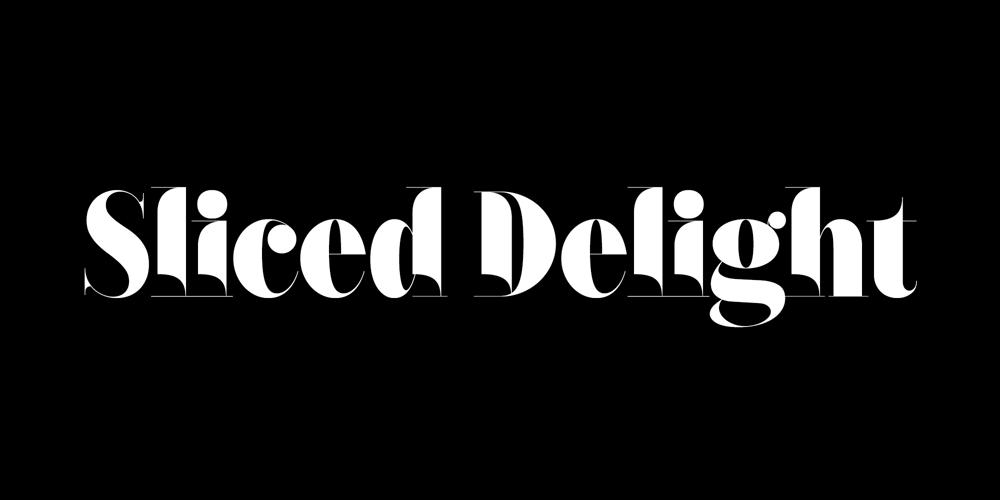
Sliced Delight Font Family was designed by Rajesh Rajput and published by Rajesh Rajput. Sliced Delight contains 27 styles and family package options. Sliced Delight – a modern serif typeface combining classical elegance and contemporary flair. The Sliced Delight typeface is available in 9 weights ranging from Thin to Black, each featuring three optical variations – Display, Title, and Heading – for 27 styles.The Sliced Delight typeface’s unique design features give it a bold and dynamic look while maintaining legibility and readability. In addition, the optical variations allow for versatility in usage. Whether you’re designing a print publication, a website, or a brand identity, the Sliced Delight typeface is a versatile and eye-catching choice that will make your content stand out.